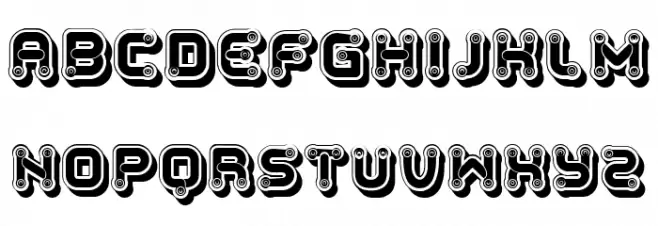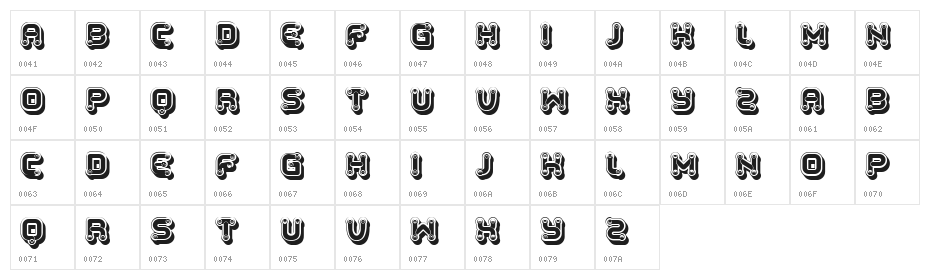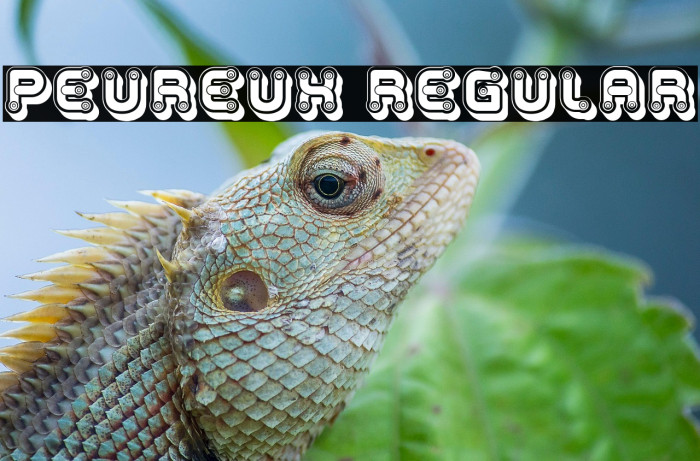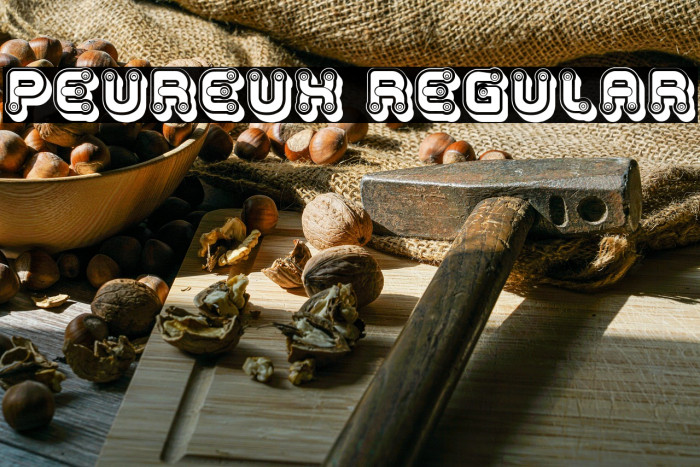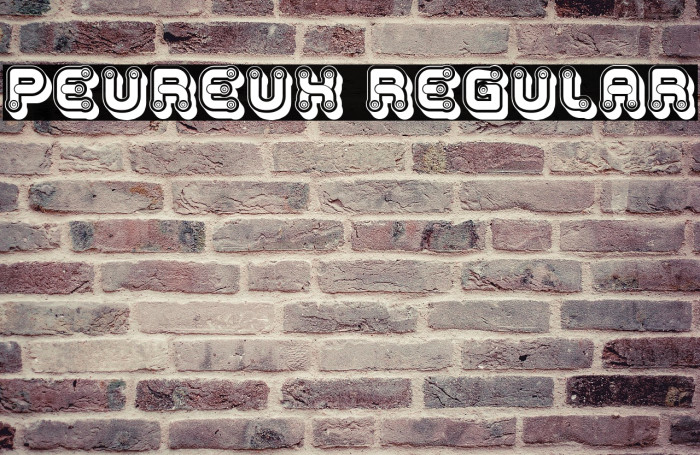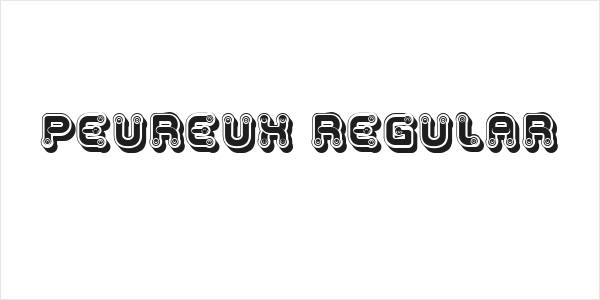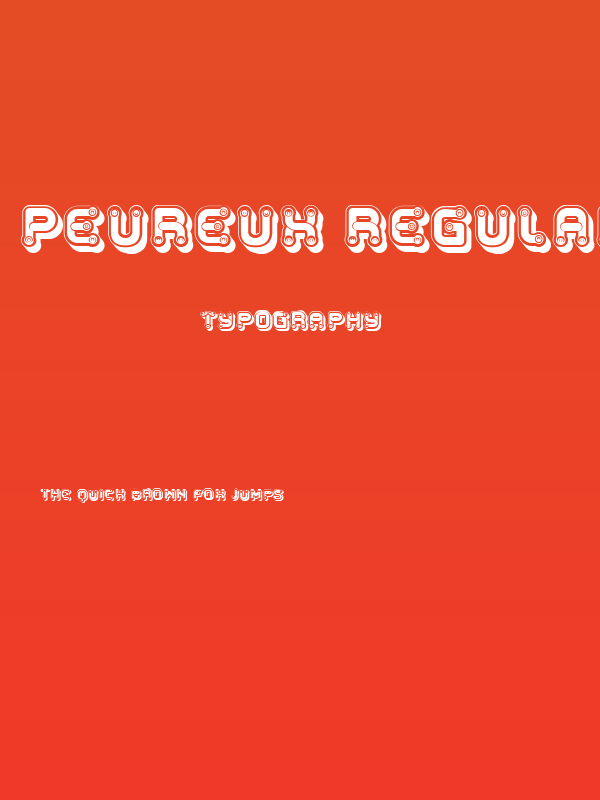
Peureux Regular Font
Peureux Regular Description
This font features a bold and decorative style with a unique, mechanical appearance. Each character is designed with a double-layered effect, combining a solid black base with a white outline that creates a striking contrast. The design incorporates circular elements and geometric shapes, giving it an industrial and futuristic feel. The uppercase letters are particularly eye-catching, with intricate detailing that adds depth and dimension. The font maintains consistent spacing and alignment, ensuring readability despite its complex design. It's ideal for projects that require a bold statement or a modern, tech-inspired aesthetic.
A bold, decorative font with a mechanical and futuristic design from Decorative fonts.
- Proposed Projects: Ideal for technology branding, sci-fi posters, video game titles, and industrial-themed designs.
- Overall Style: Futuristic, Industrial